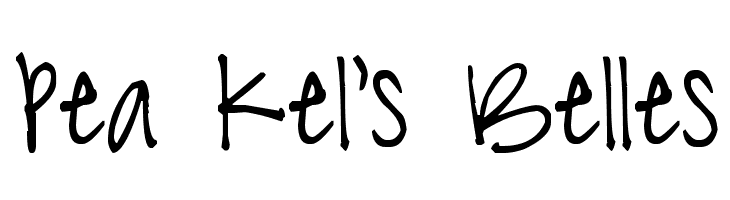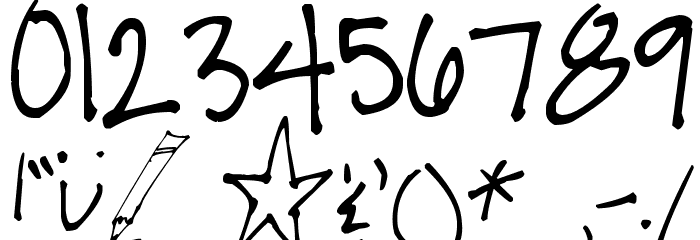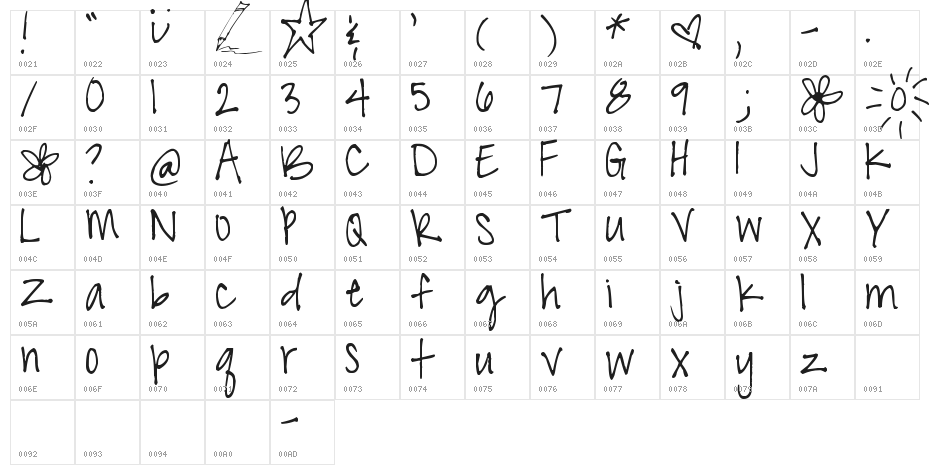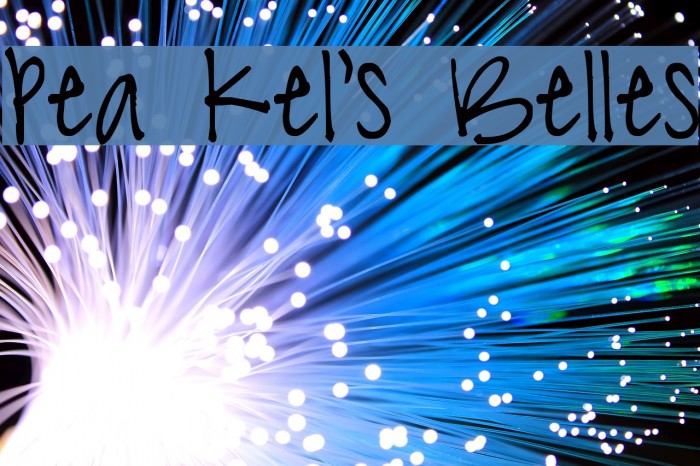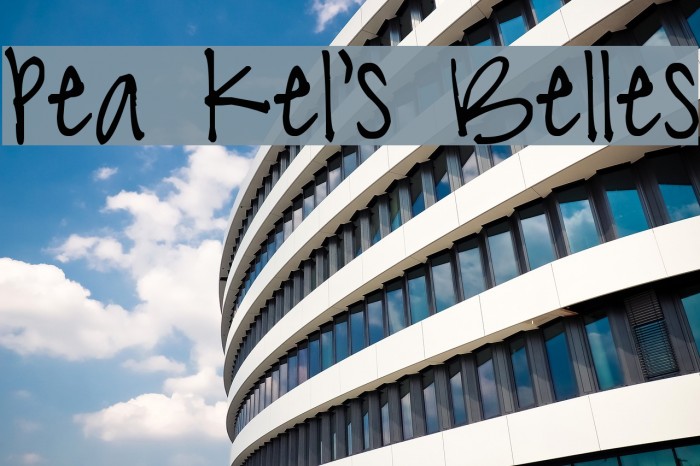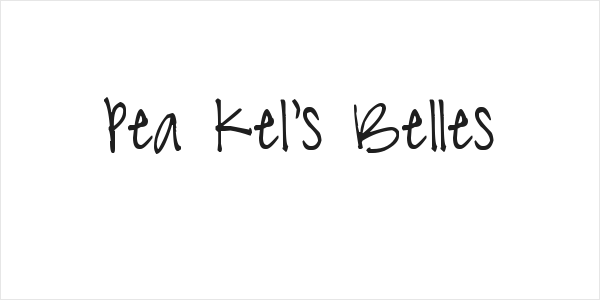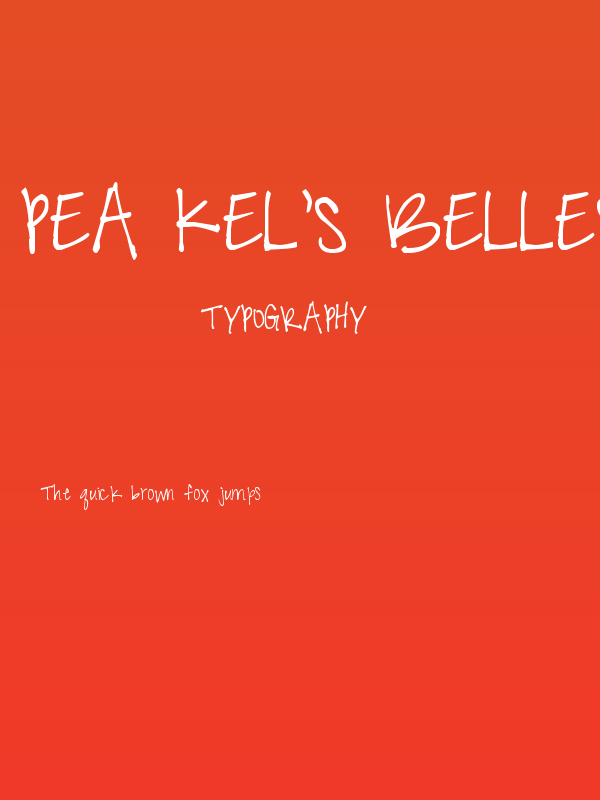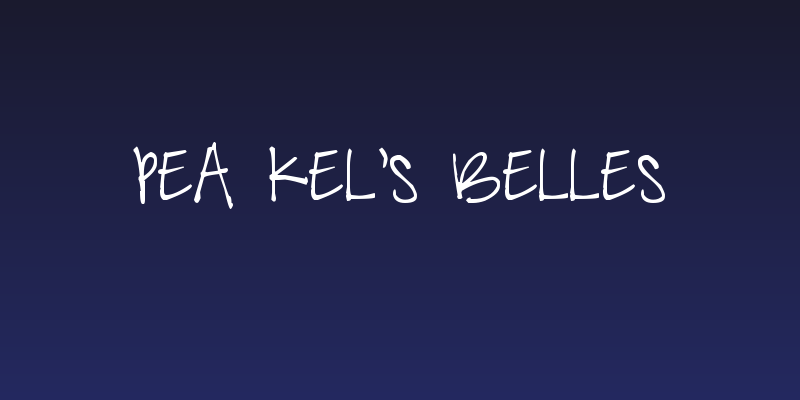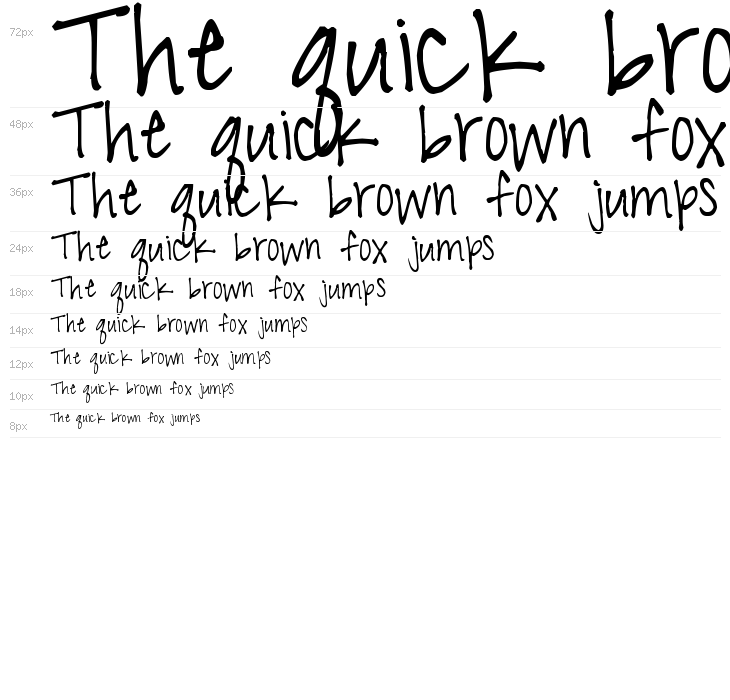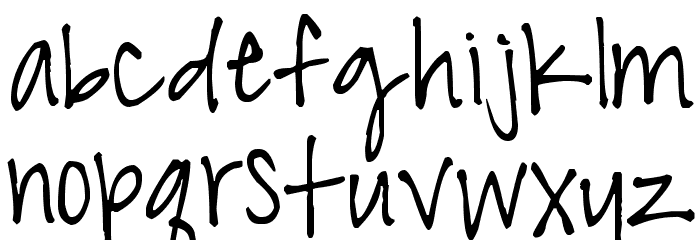
Pea Kel's Belles Font
Pea Kel's Belles Description
This font exudes a playful and casual handwritten style, characterized by its loose and informal strokes. The letters have an organic flow, with varying heights and angles that give it a lively and spontaneous appearance. The uppercase and lowercase letters maintain a consistent style, while the numerals and special characters add a whimsical touch. The font's overall look is reminiscent of a personal note or a casual invitation, making it ideal for projects that require a friendly and approachable feel.
| Use Case | Greeting cards, Personal notes, Casual invitations |
| Proposed Projects | Ideal for greeting cards, personal notes, casual invitations, and playful branding projects. |